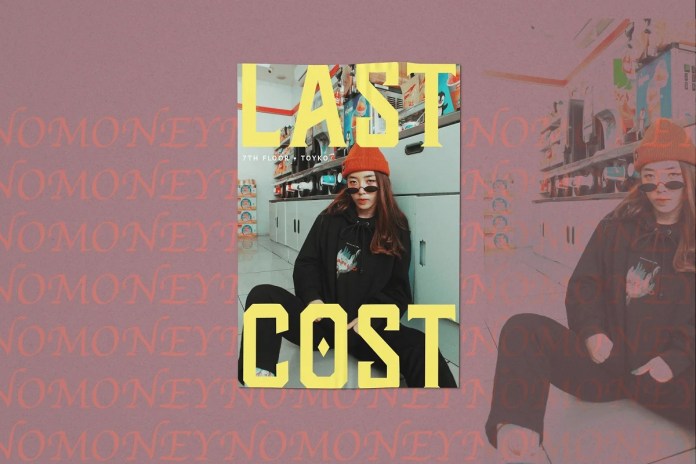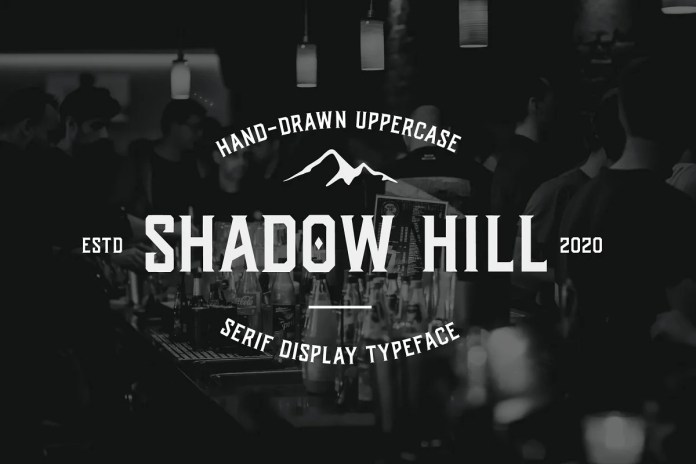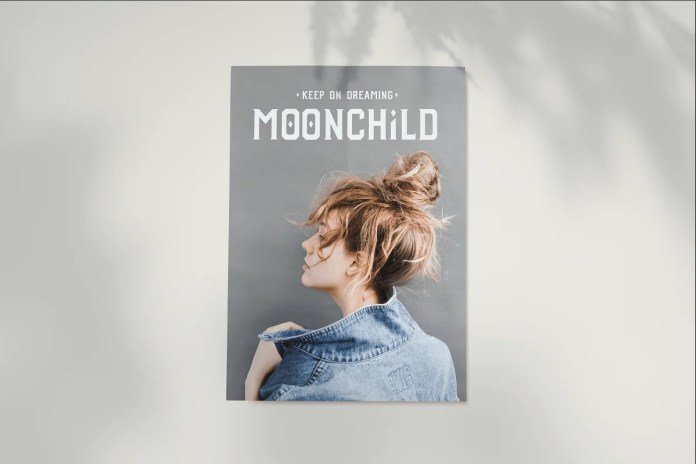
Shadow Hill Display 字体介绍
This is a simple and interesting stylist display font from designer Galaxybomb. This typeface has a classic, vintage feel with a modern twist.
Shadow Hill is the perfect typeface for logos, as well as in web headings, signage and print. There are also 3 lowercase alternates that add personality and uniqueness to your design.